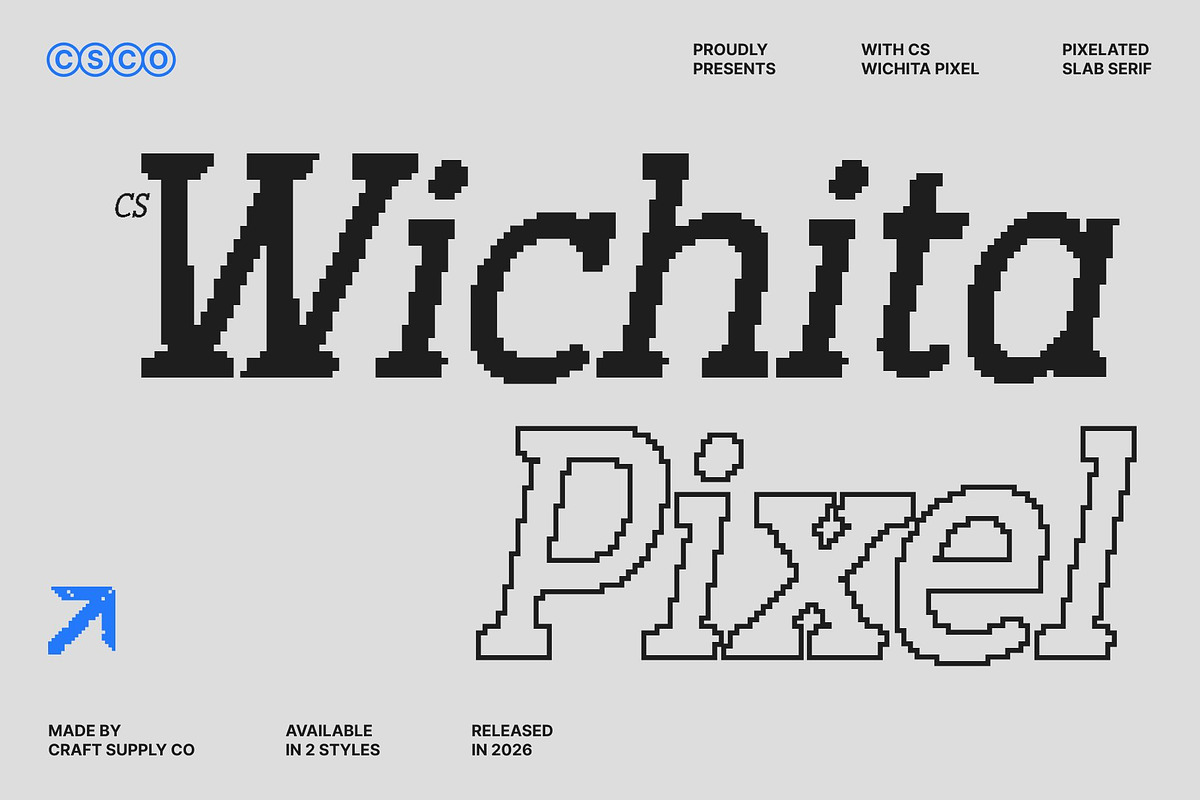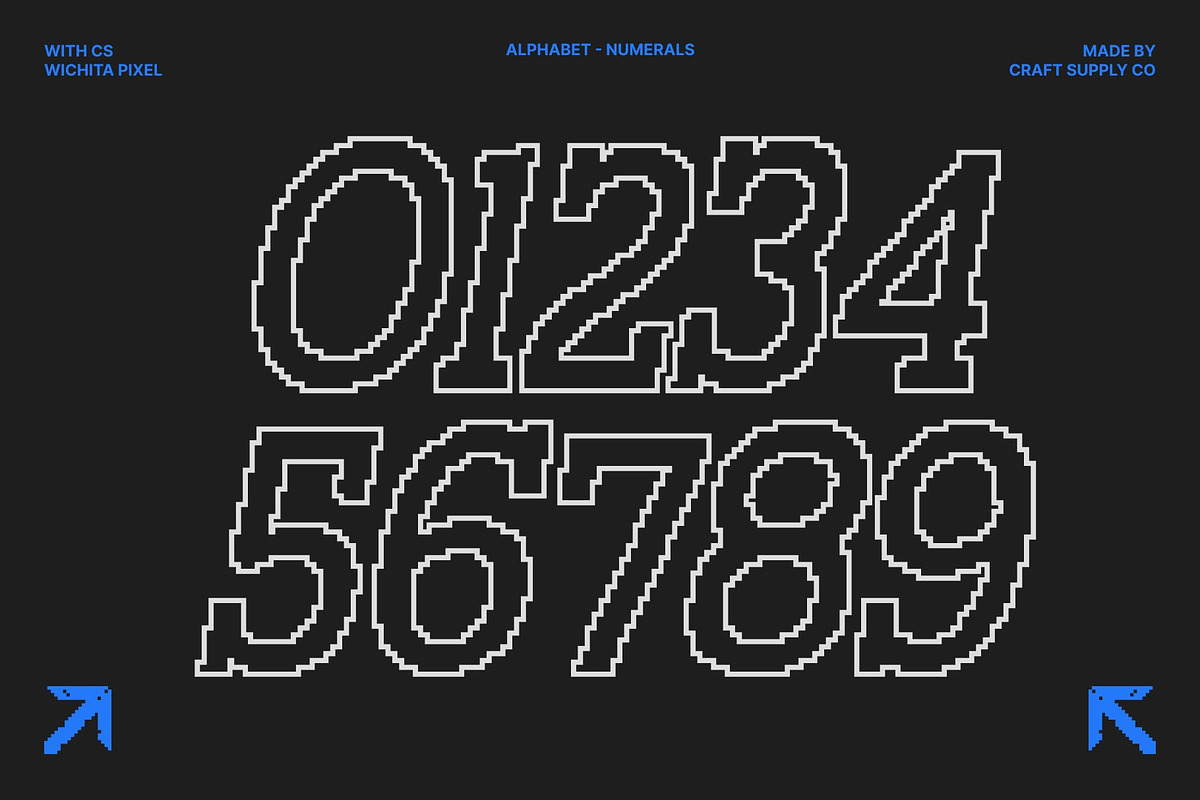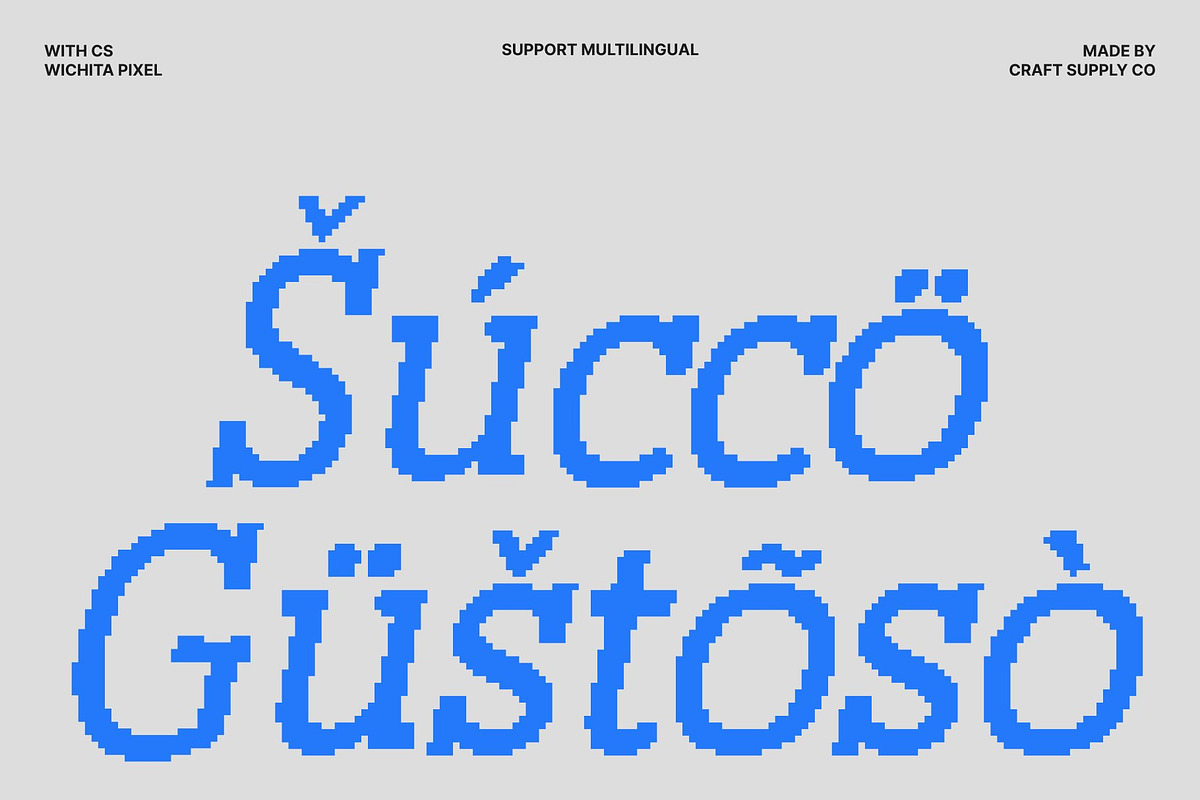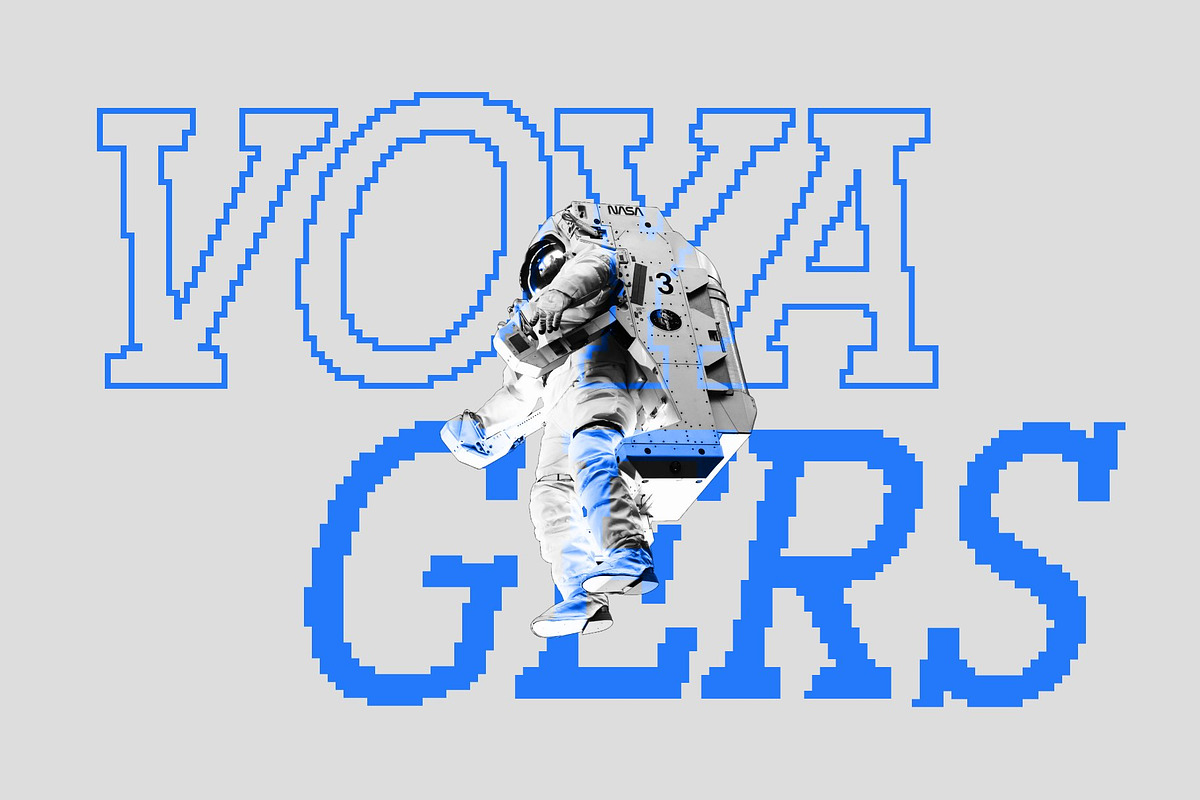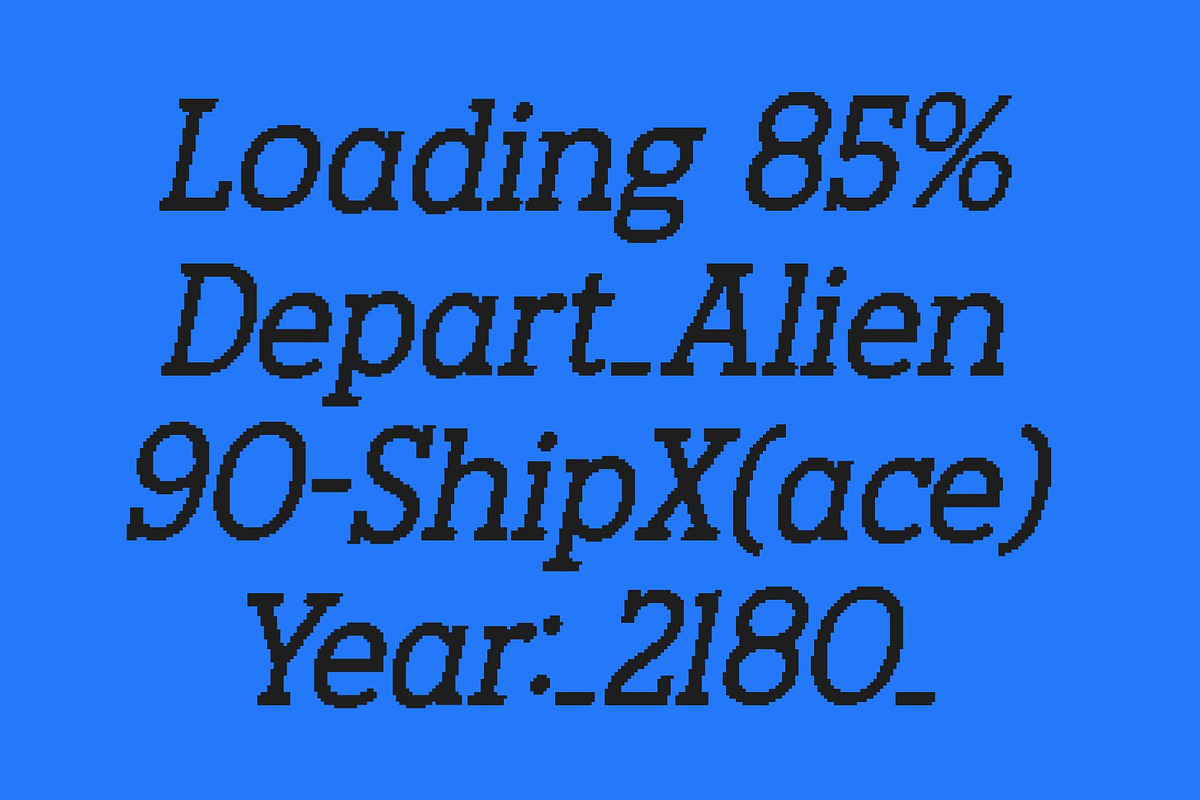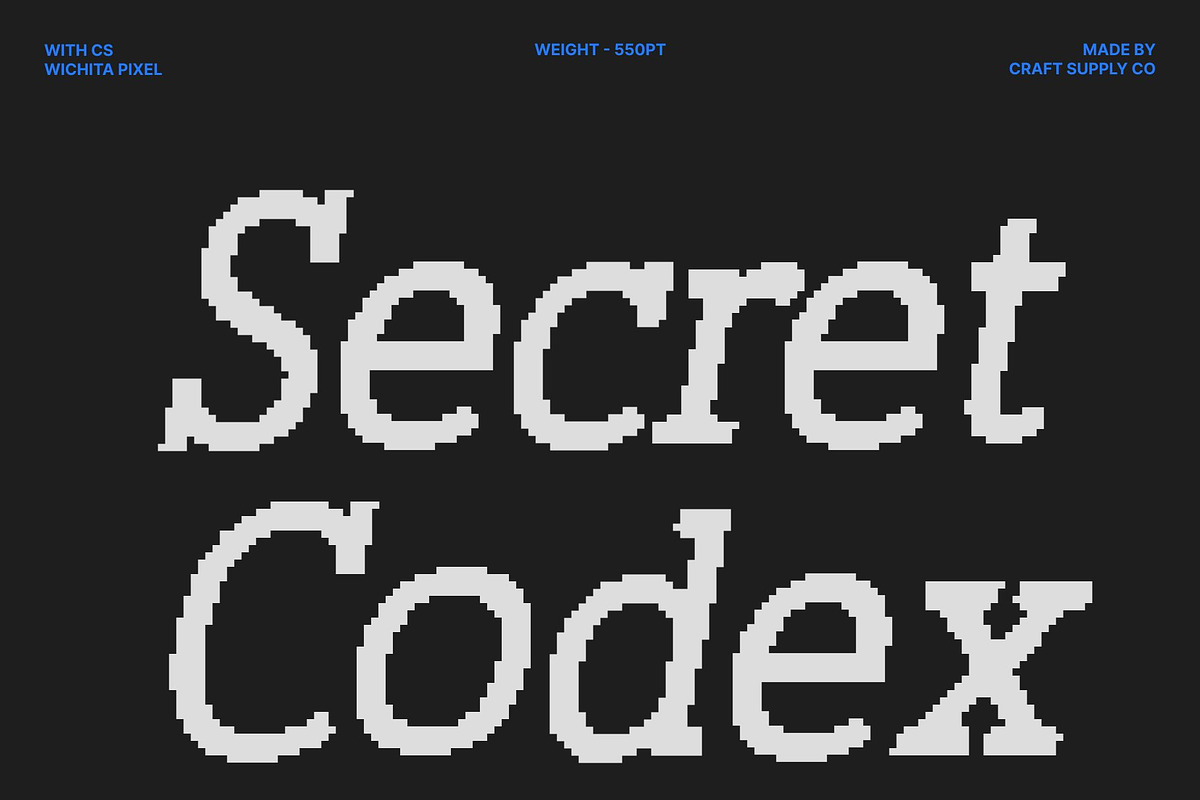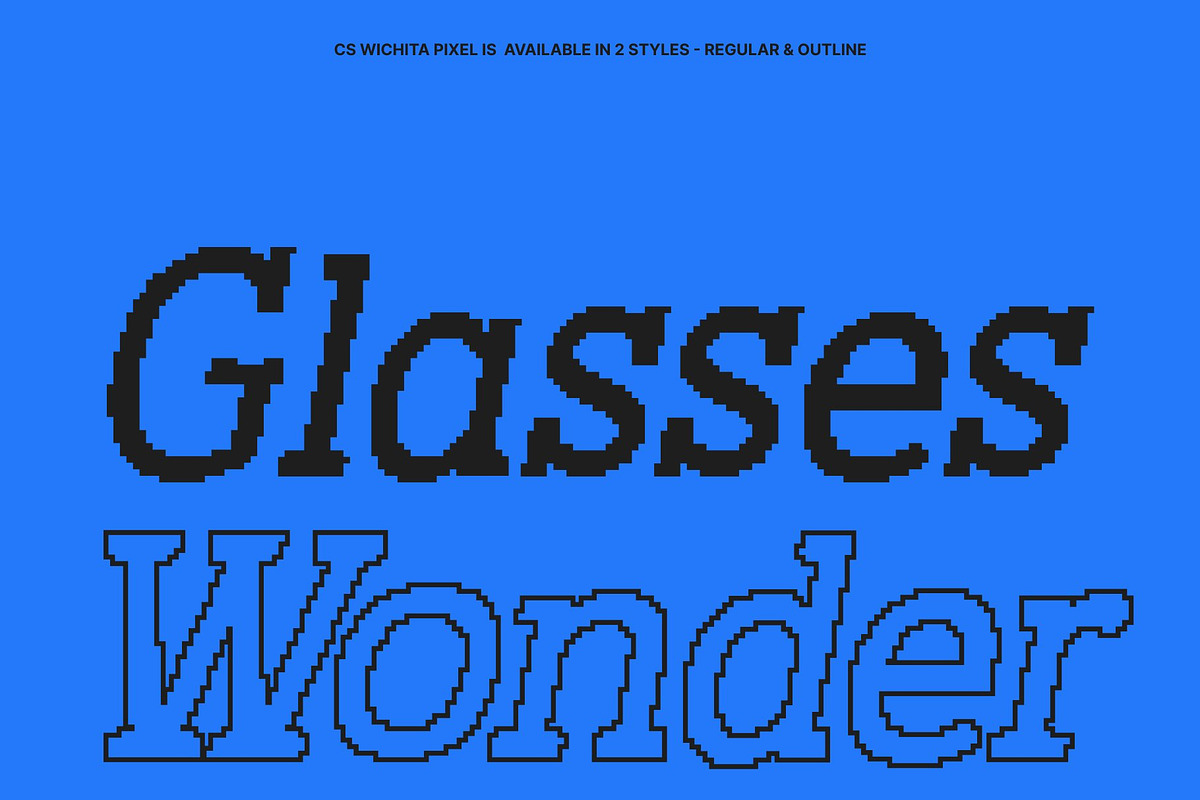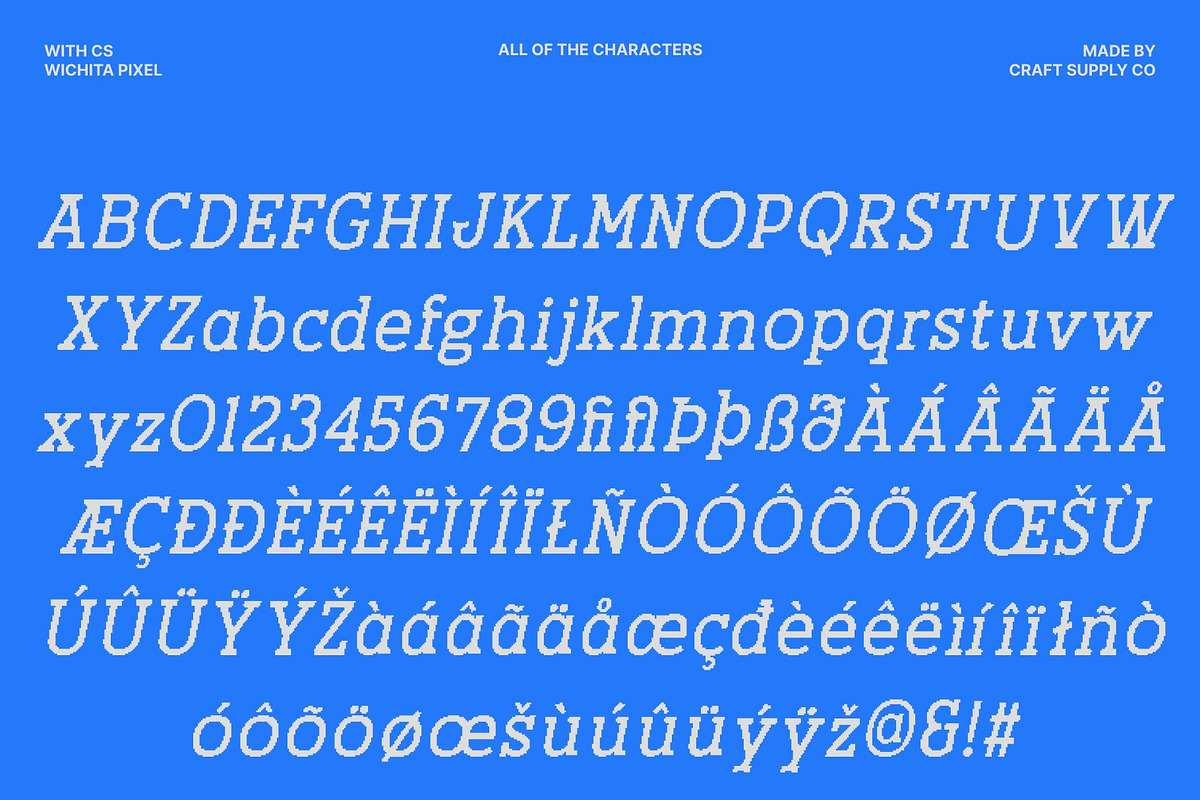
CS Wichita Pixel
CS Wichita Pixel – Clean Slab Serif Font with Modern Digital Character
Modern Slab Serif with Pixel Precision This is a slab serif display font that blends clean, confident structure with distinctive pixel detailing. Built on sturdy slab serifs and balanced proportions, this font delivers strength and clarity while introducing a subtle old-digital feel. The pixel construction adds a retro-tech nuance, giving the typeface a modern yet nostalgic character that feels rooted in digital culture.
Solid Letterforms with Digital Construction Each character is crafted with precise geometry and consistent strokes, reinforced by pixel-based edges that recall early digital typography. The slab serifs provide stability and authority, while the pixel detail brings an 8-bit-inspired texture that enhances visual interest.
Retro Digital Style with Contemporary Confidence This font bridges classic slab serif foundations with retro digital aesthetics. Its pixel accents evoke old computer displays and early screen typography, while its clean form and spacing keep it relevant for modern design needs. This balance makes the font feel timeless honoring the past while fitting seamlessly into contemporary visual trends.
Versatile for Titles, Posters, and Modern Editorial Use Designed for flexibility, this font performs beautifully in titles, posters, branding, and editorial layouts. Its solid presence ensures strong readability at display sizes, while the pixel detail adds character and uniqueness. Perfect for designers seeking a slab serif font that combines clarity, modern confidence, and retro digital charm.